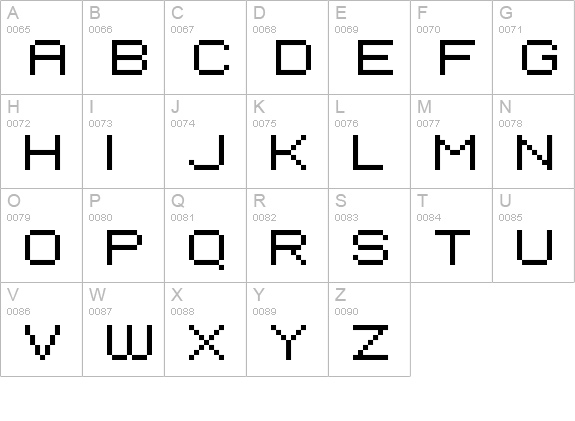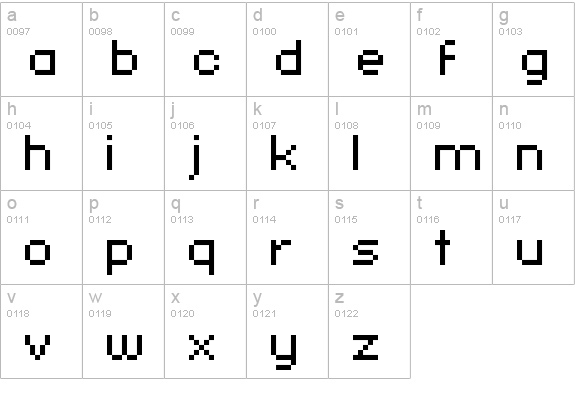
Introducing the captivating and versatile Standard 07_51 font, a true gem in the world of typography. This font boasts a unique blend of elegance and modernity, making it perfect for a wide range of projects. With its clean lines and well-balanced proportions, Standard 07_51 adds a touch of sophistication to any design. Whether you're creating a stunning logo, designing a sleek website, or crafting eye-catching print materials, this font is sure to make a lasting impression. One of the greatest advantages of Standard 07_51 is that it is freely available to download at FontsMarket.com. This means that you can enjoy the beauty and functionality of this font without any cost or restrictions. It's an incredible opportunity to elevate your creative endeavors without breaking the bank. The versatility of Standard 07_51 is truly remarkable. From bold headlines to elegant body text, this font adapts effortlessly to any context. Its wide range of weights and styles allows for endless possibilities, ensuring that your designs always stand out from the crowd. Furthermore, the attention to detail in the design of Standard 07_51 is truly commendable. Each character is meticulously crafted, resulting in a font that exudes professionalism and precision. It's a testament to the dedication and skill of the font's creators. In conclusion, Standard 07_51 is a must-have font for any designer or creative professional. Its captivating charm, versatility, and freely available nature make it an invaluable asset to your typographic toolbox. Don't miss out on the opportunity to enhance your projects with this exceptional font. Download Standard 07_51 for free at FontsMarket.com and unlock a world of design possibilities.